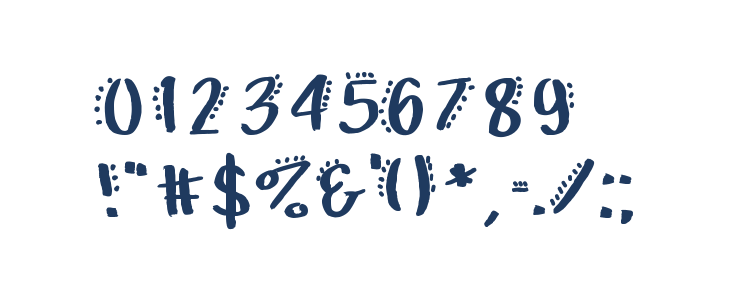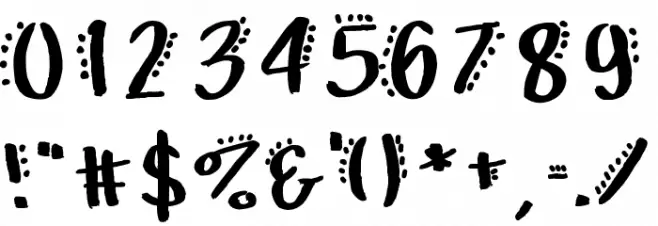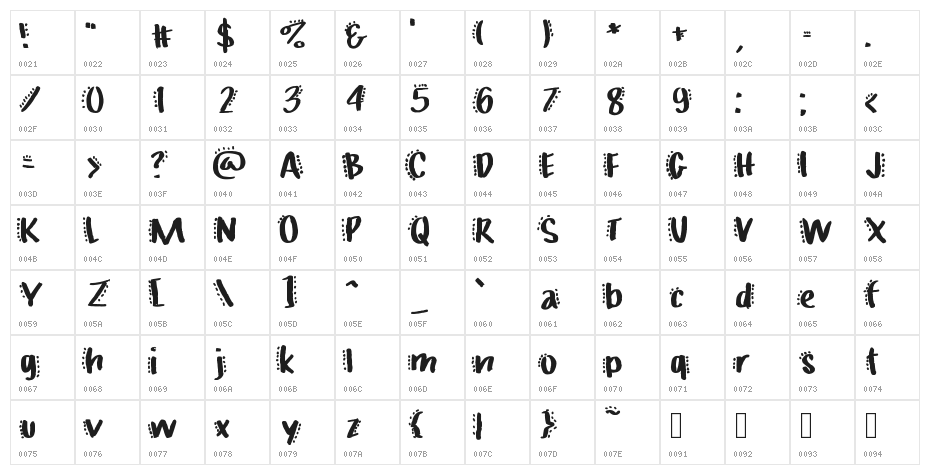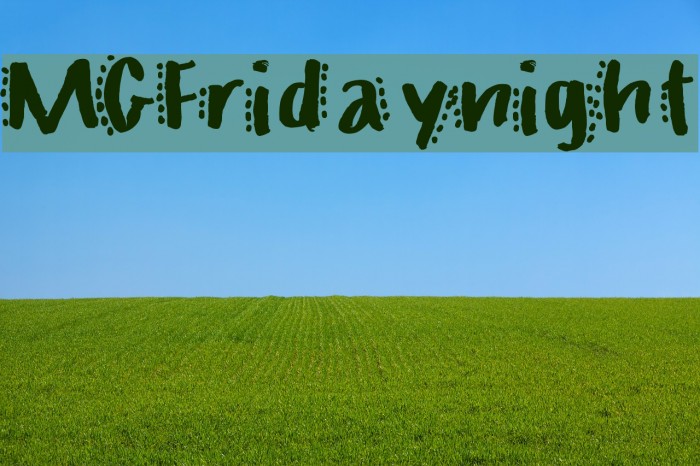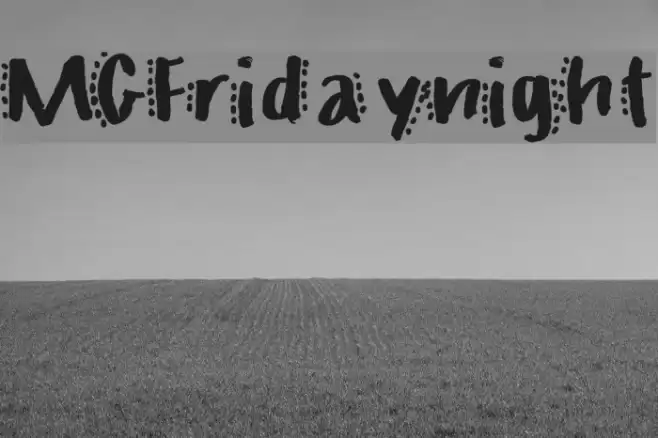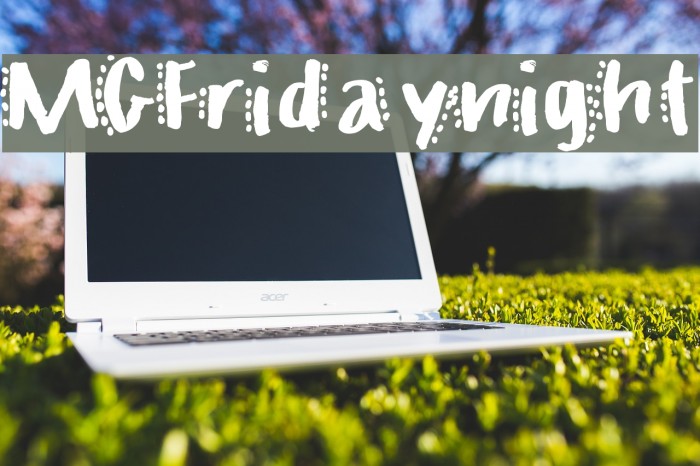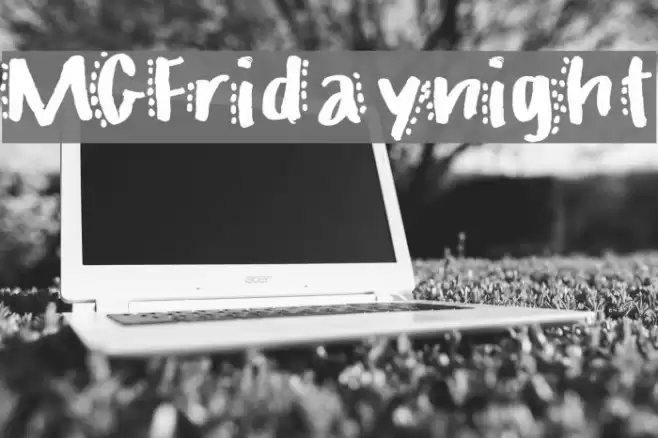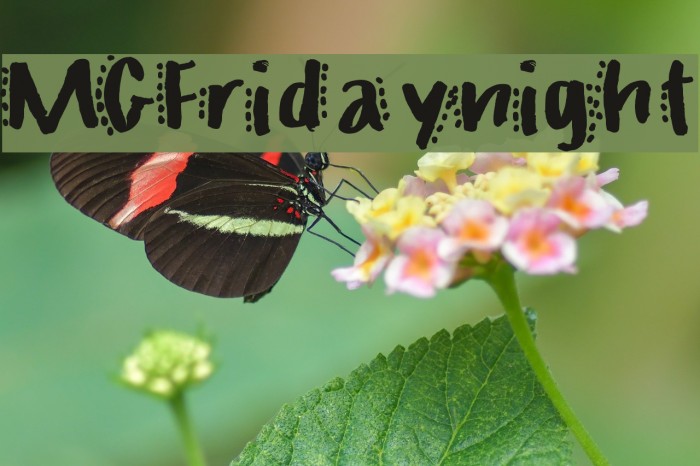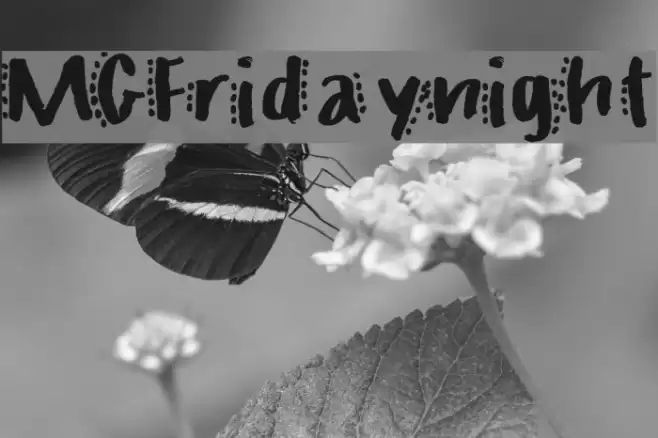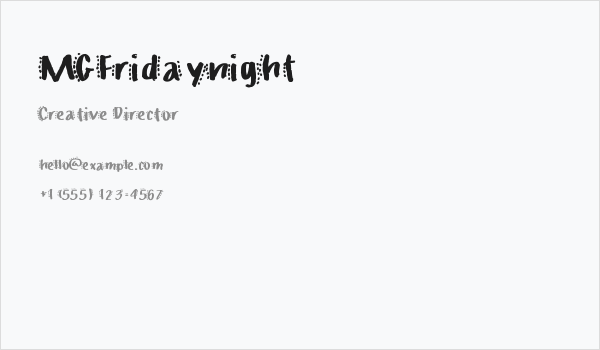
MGFridaynight Font
MGFridaynight Description
This playful and energetic font features a bold, hand-drawn style with a unique dotted texture along the edges of each character. The uppercase letters are robust and dynamic, while the lowercase letters maintain a whimsical charm. Numbers and special characters are equally expressive, making them stand out in any design. The font's distinctive style is perfect for projects that require a fun and lively touch, such as children's books, party invitations, or playful branding. Its bold strokes and dotted accents give it a decorative flair that captures attention and adds a sense of movement to the text.
| Overall Style | Playful, Energetic, Decorative |
| Proposed Projects | Ideal for children's books, party invitations, playful branding, and decorative posters. |